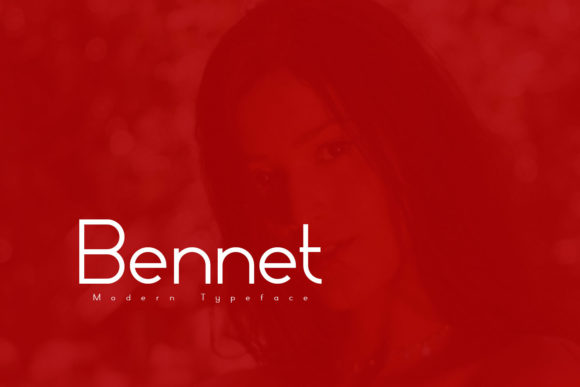
Step into the realm of visual captivation with Bennet Font, a masterpiece crafted by BeeType to illuminate your designs with an enchanting glow. Its sleek, modern silhouette and graceful curves evoke a sense of timeless sophistication that will elevate any project to new heights. Whether you seek to illuminate a minimalistic poster, craft an eye-catching flyer, or leave an indelible mark in print, Bennet Font is your beacon of brilliance.
At the heart of Bennet Font lies a symphony of simplicity and modernity, a harmonious blend of clean lines and subtle curves that dance across the page with effortless grace. Its slim structure lends an air of understated elegance, making it the perfect choice for designs where clarity and impact are paramount.
Unleash the limitless potential of Bennet Font and witness the transformation of your creative vision into a captivating reality. Its versatility knows no bounds, effortlessly adapting to a myriad of design aesthetics, from the sleek and minimalist to the bold and expressive. Let your imagination soar as you explore the endless possibilities that await, knowing that Bennet Font will faithfully translate your every stroke into a masterpiece.
Dive into the world of Bennet Font and embark on a journey of visual storytelling where every letter becomes a radiant star, illuminating your designs with a brilliance that will leave an unforgettable impression. Its captivating presence will captivate your audience, drawing them into your creative realm and leaving them spellbound by the sheer beauty of your creations.